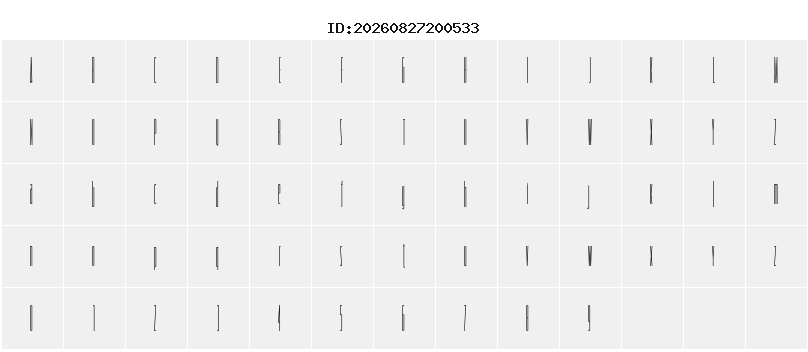
tallest Preview
• Font Name: tallest
• Font ID: francescocanovaro: tallest: 2009
• Full Font Name: tallest
• Version: Version 3.000 2009 initial release
• PostScript Name: tallest
• Character Count: 239
• Designer: Francesco Canovaro
• Manufacturer: francesco canovaro
About tallest.ttf
tallest.ttf is a modern, elegant sans-serif font designed for ultimate readability and visual harmony. Perfect for branding, headlines, web design, and print materials.